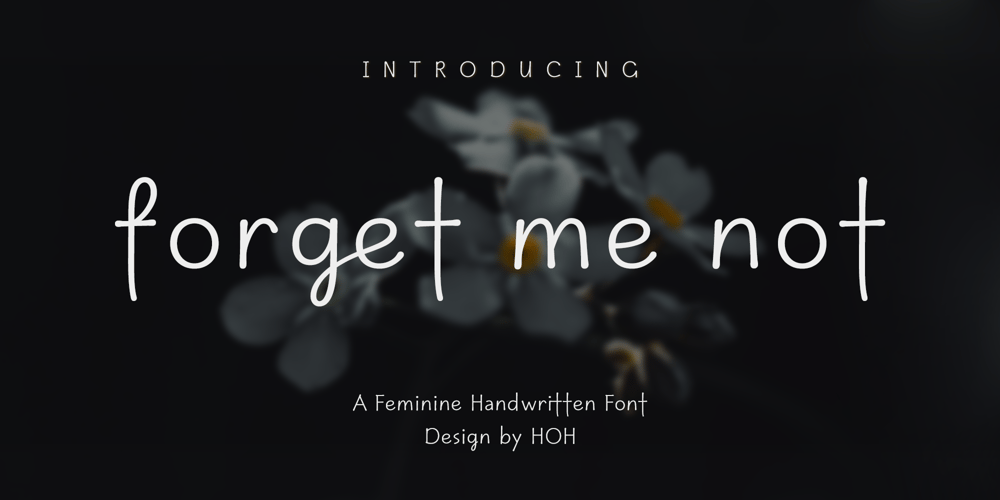
HOH Forgetmenot Font Family was designed by Saebom Lee and published by HOHOHtype. HOH Forgetmenot contains 1 styles and family package options. ‘Forgetmenot’ is a feminine handwritten font. It has a small x-height, and long descender.It was designed with applications such as advertising and packaging, editorial and publishing, logo, branding and creative industries, poster and social media, and marketing in mind.